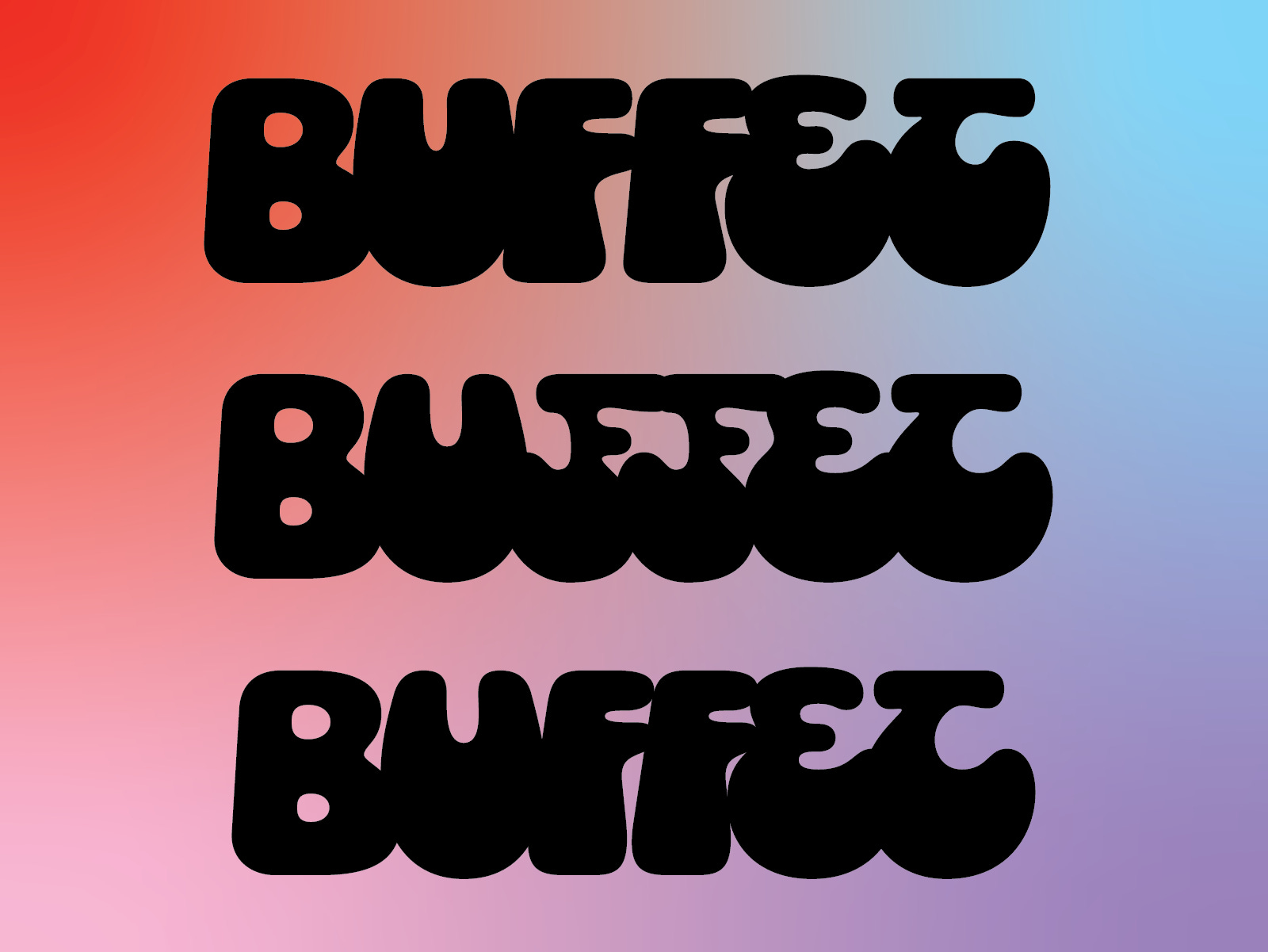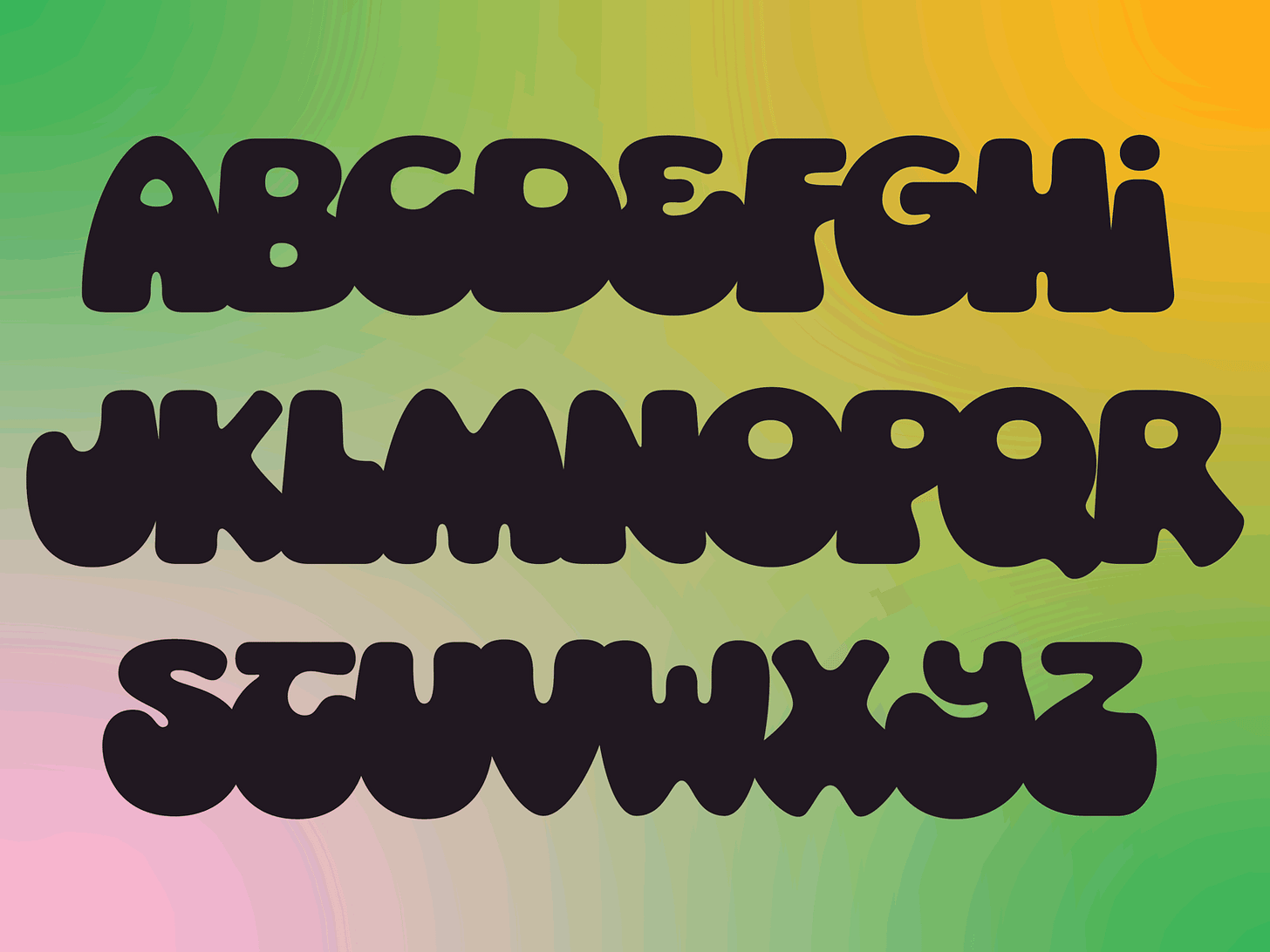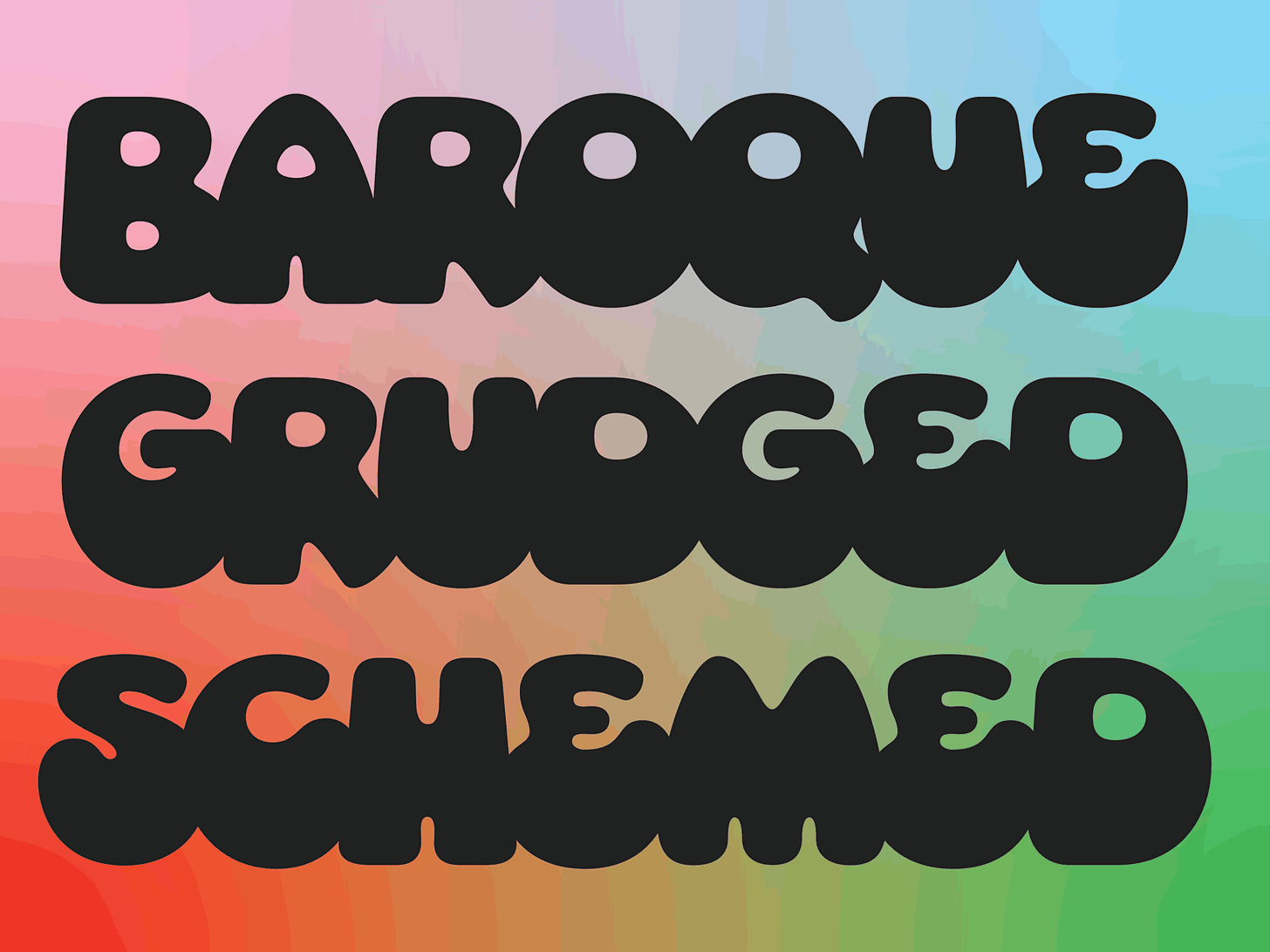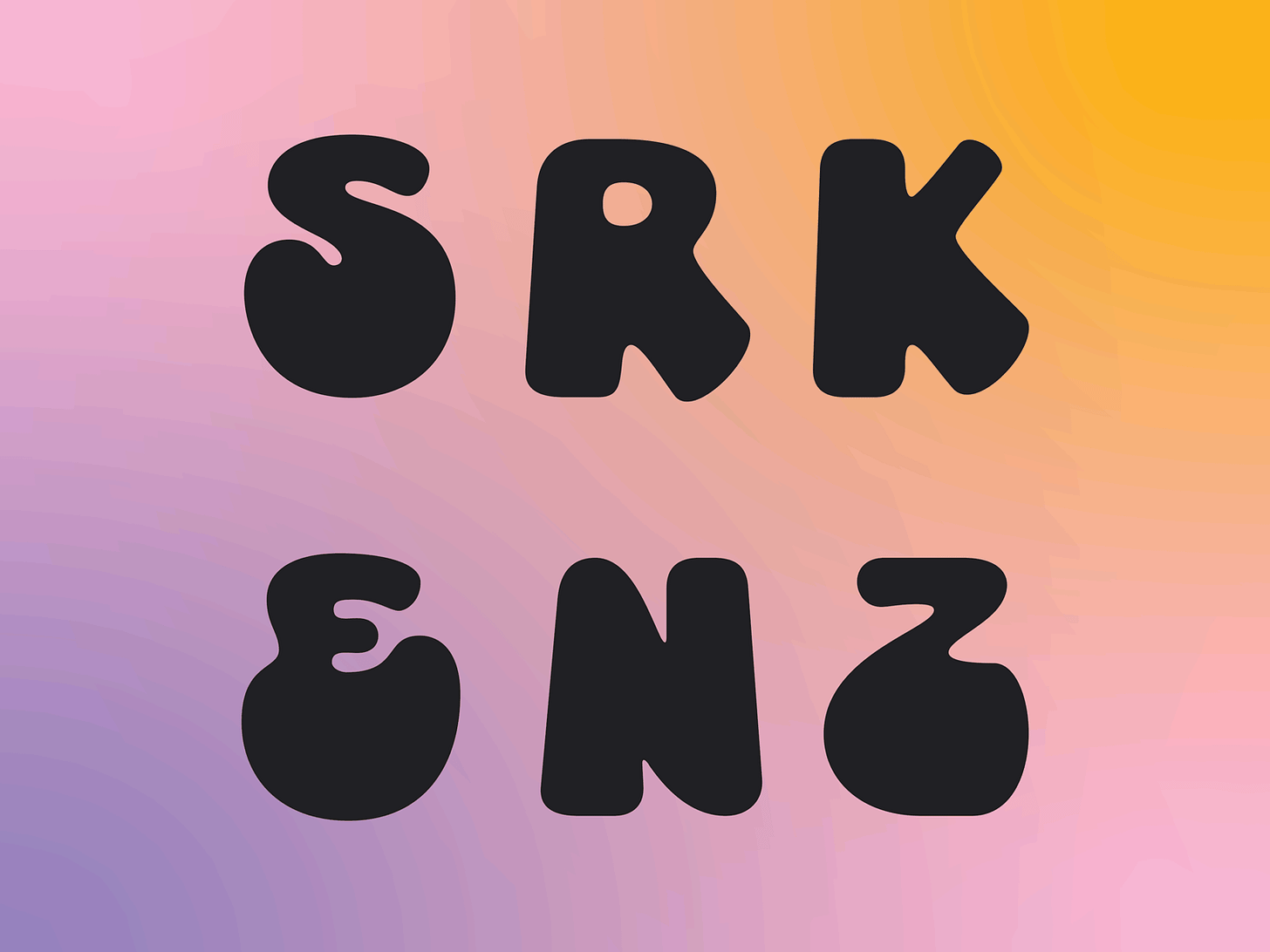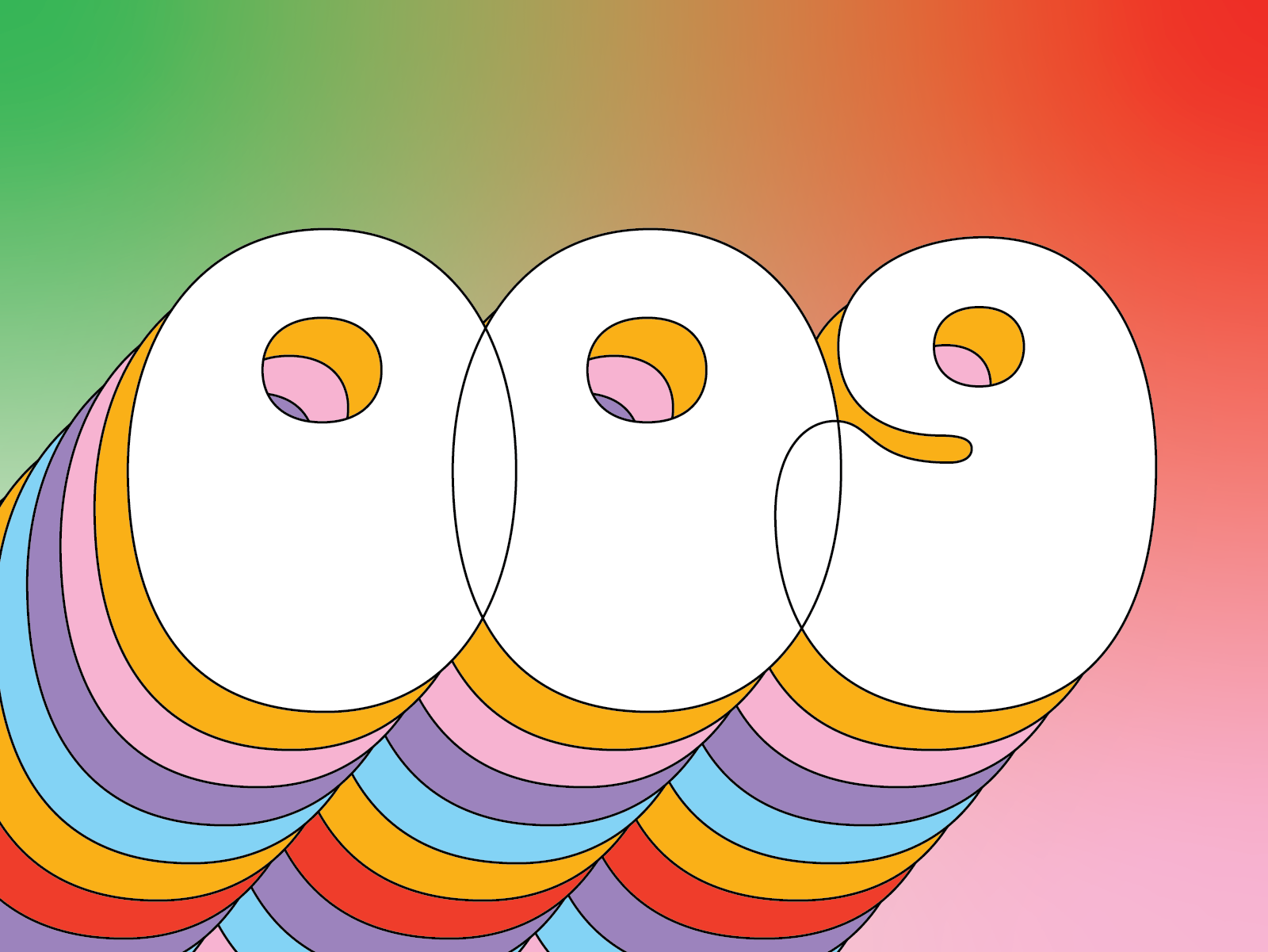
TDN Update 009
Socko returns!
The second thing I want to discuss is Socko. You remember it from week 43, yes? For reasons I can’t fully discuss yet, it has been yanked out of the 52 Fonts archive and added to my FIP pile. And honestly, thank god! Trying to be a Serious Type Designer™ was stressing me out. Working on Socko feels much less consequential.
Here’s a quick before and after! My first pass was adding some uniformity into the heights of the counters and the bottom strokes of C, E, T, and Y. I also removed all the straight segments. Socko started from lettering I found in a vintage knitting magazine but I am starting to move away from the original. The straight sides of some letters like F, H, I, and L did not feel right for me so they had to go! The stroke endings of L, K, R, X, and Z made me want to vom — bye bye!
Because I couldn’t stand the angled strokes of K, R, and X, I borrowed the bottom half of C and E. I’m not 100% convinced that this is the right solution as it feels a little *extra* at the moment. They look normal within a word but on their own they look a little whack. I think there’s a happy medium somewhere!
See what I mean? It’s a little too groovy — especially in the Z! X will need a similar solution but I wasn’t feeling brave enough to try it just yet.
Also I’m having a major SOS moment with the F. No matter what I do, it looks ugly or doesn’t work with the overlapping spacing. It is definitely Socko’s problem child. If you are a professional F designer, plz help!! I can’t have a little eyesore F. :(